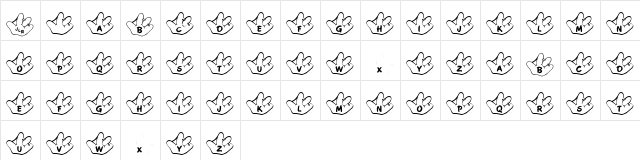
JLR Li'l Leeg Regular Font Preview
JLR Li'l Leeg Regular
Design Context for JLR Li'l Leeg Typeface
JLR Li'l Leeg is a composed and adaptable typeface that performs quietly and consistently across a wide range of design contexts.